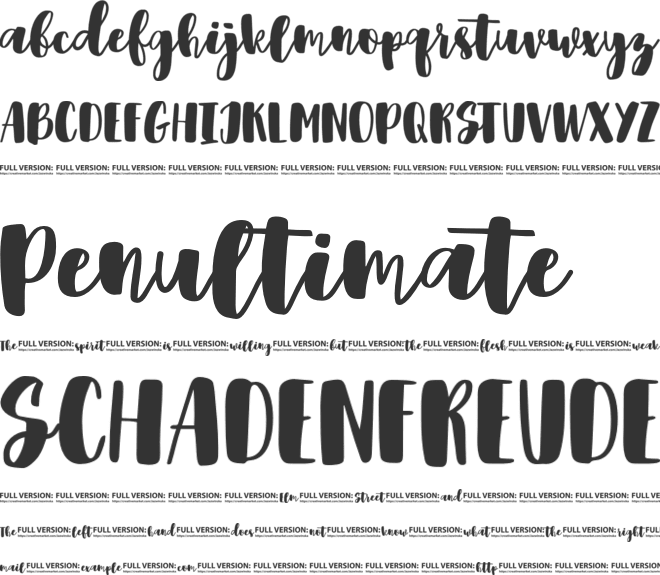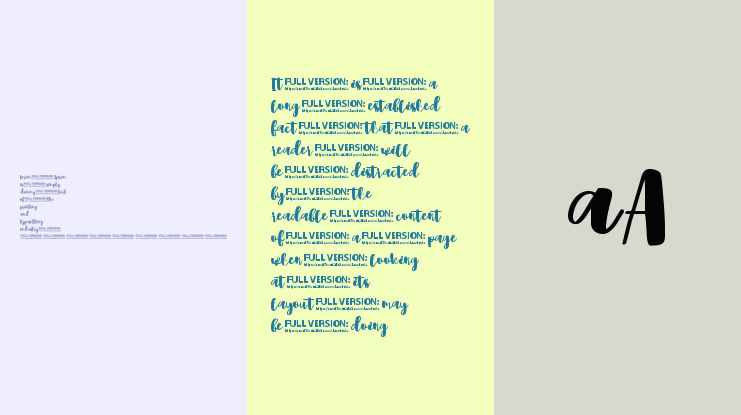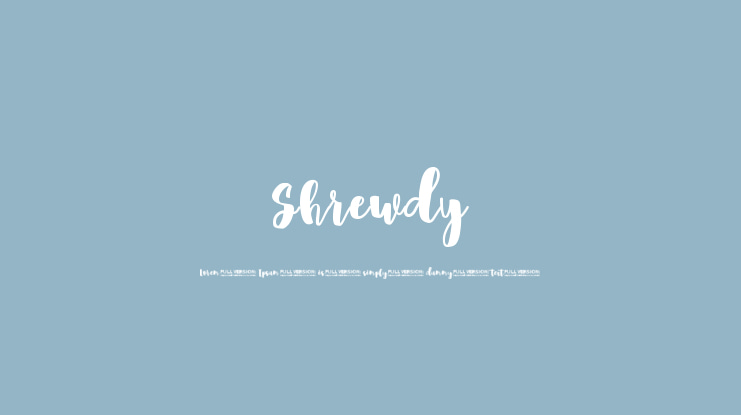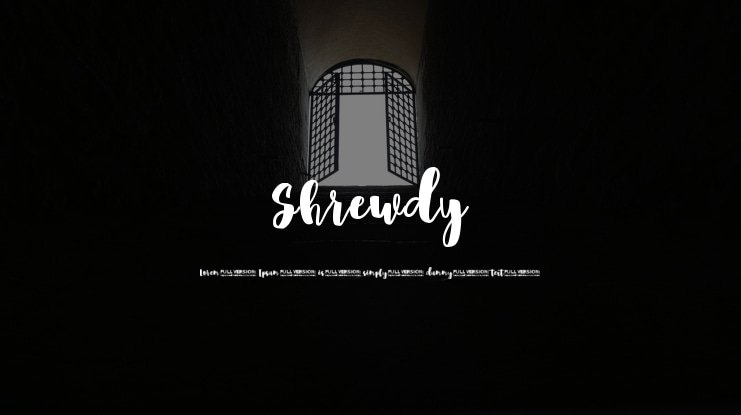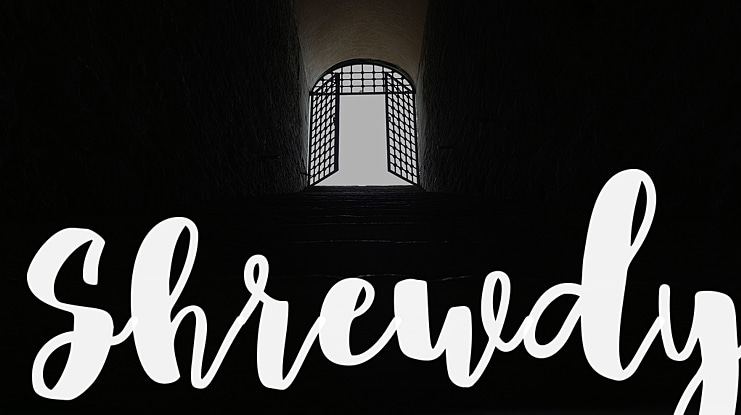
Shrewdy Font
If you are looking for a handmade brush font with bold yet stylish characters, Shrewdy is the one for you! The full version of the font includes basic punctuation, numbers, roman and cyrillic typeface and special glyphs, so the font can be used with most of the European languages.